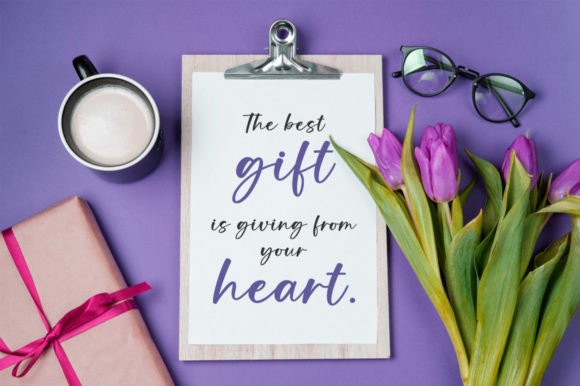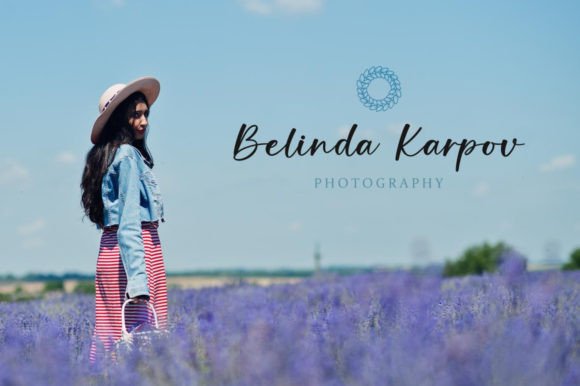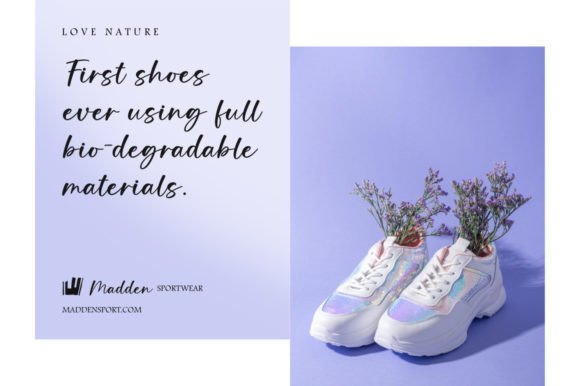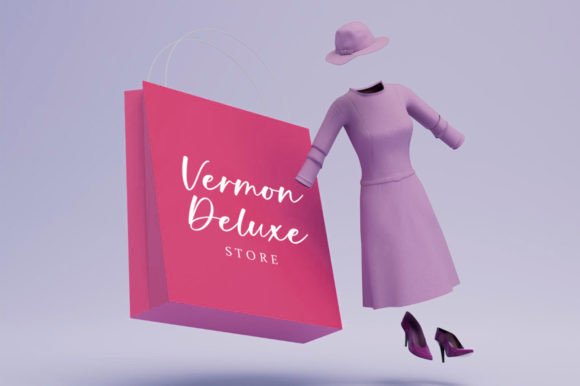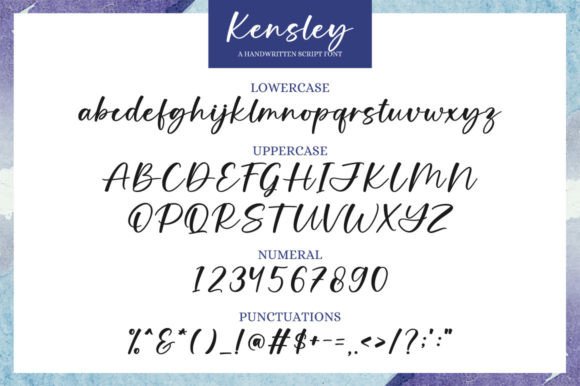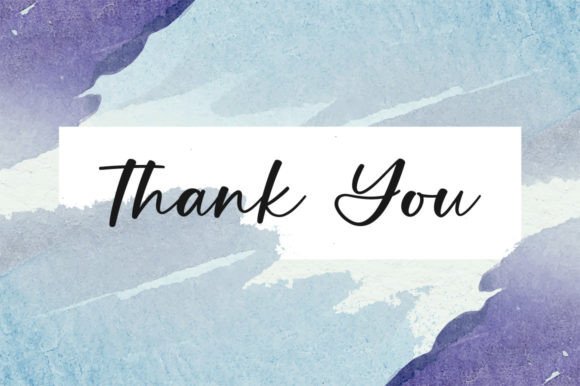
About Kensley Font
Kensley is a delicate, elegant, and flowing handwritten font. It has beautiful and well-balanced characters and as a result, it matches a wide pool of designs. Kensley is PUA encoded, which means you can access all of the glyphs and swashes with ease!